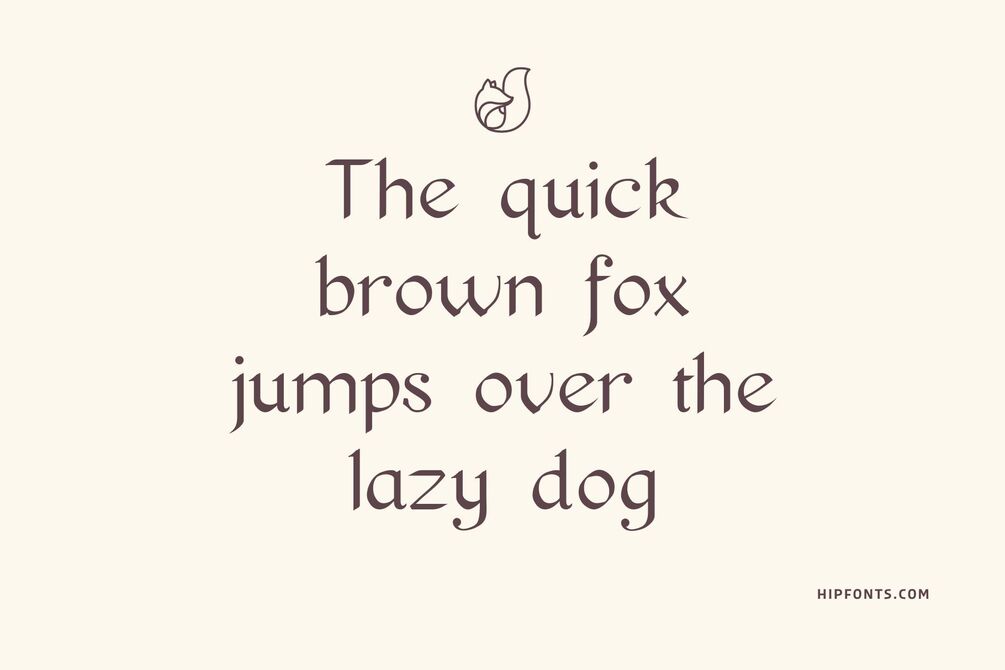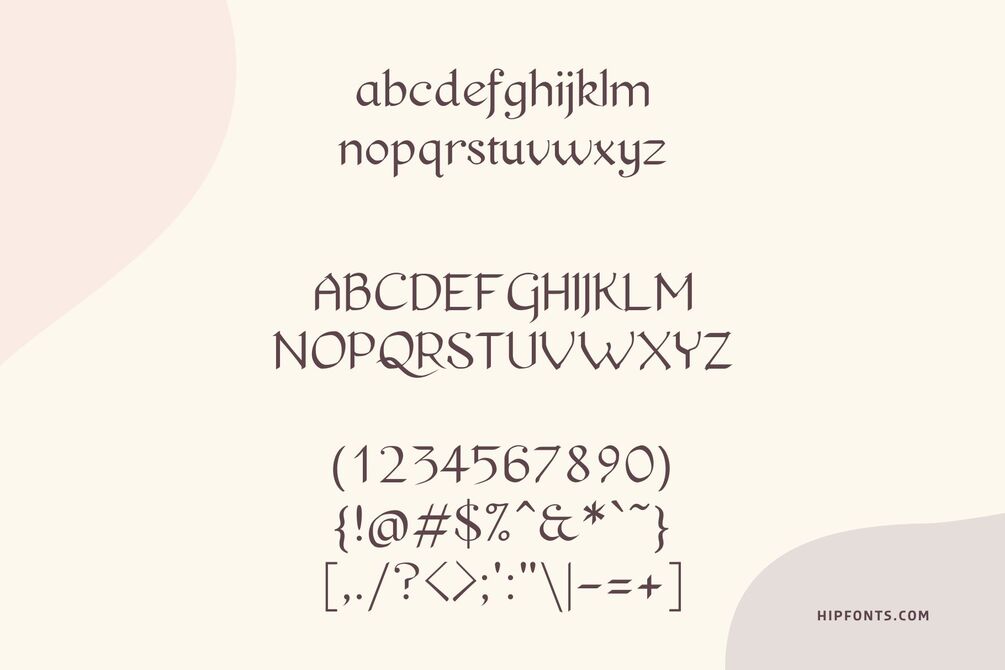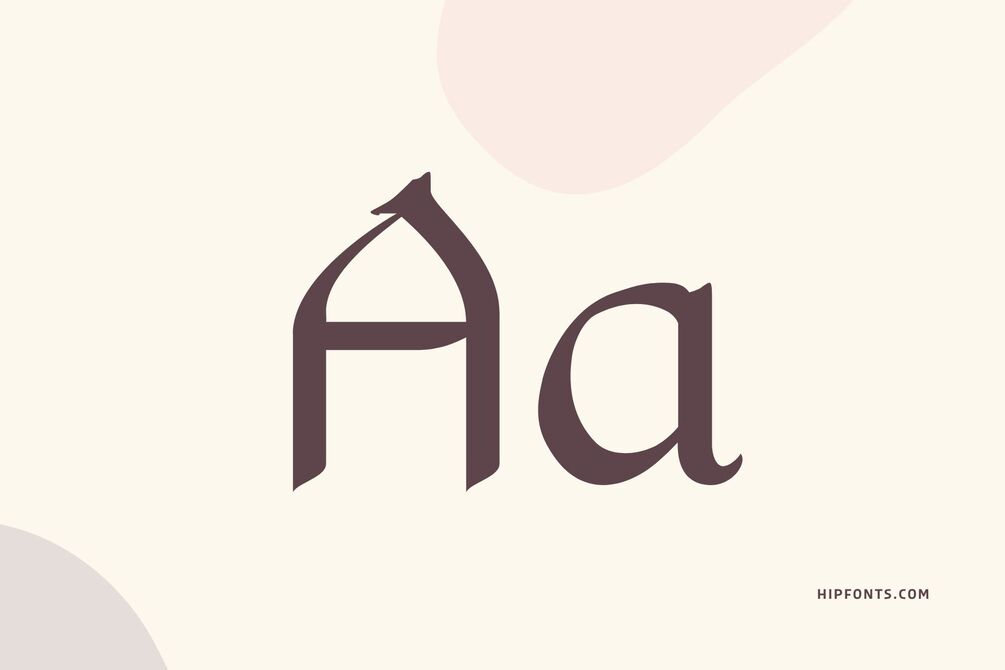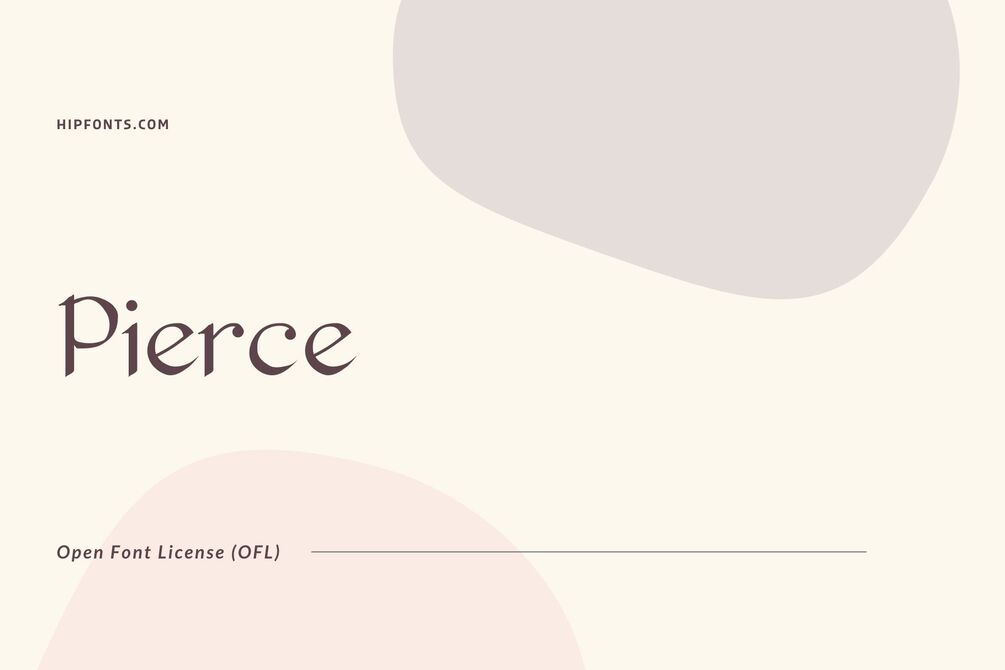
Pierce
Pierce is a bold and powerful font that commands attention with its assertive presence. Its sharp edges and strong letterforms exude a sense of strength and impact.
Ideal for headlines, logos, and branding materials, Pierce grabs the viewer's attention and conveys a message of confidence and authority. The distinctive character of Pierce allows it to make a bold statement in various design contexts, from bold and edgy branding to impactful poster designs.
Its versatility shines through in its ability to adapt to both modern and futuristic aesthetics, offering designers a powerful typographic tool to communicate their message with utmost impact.